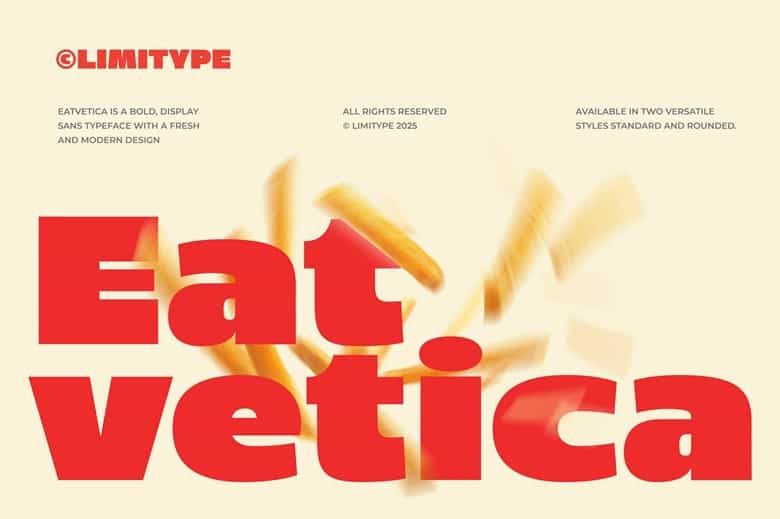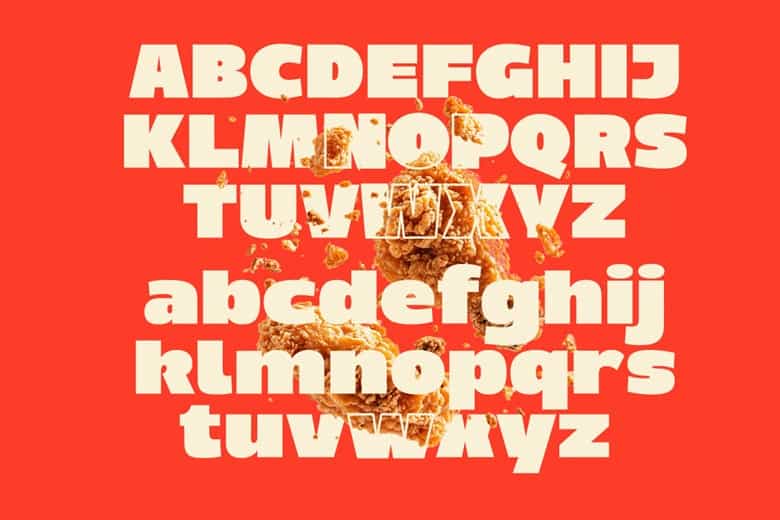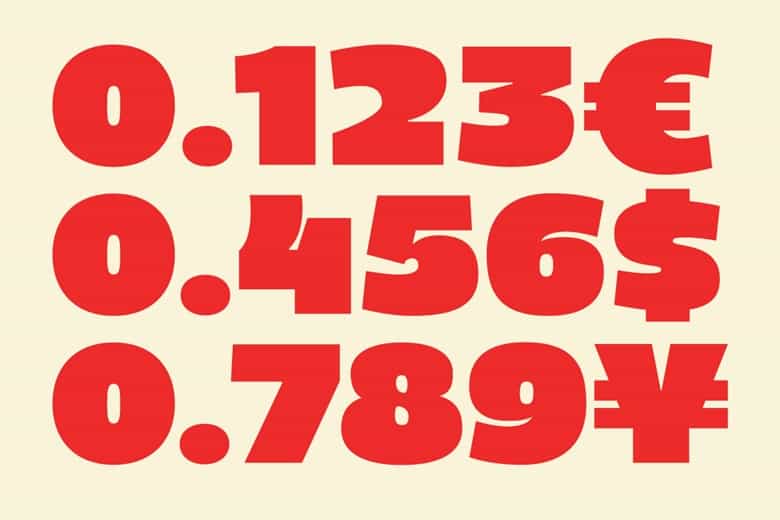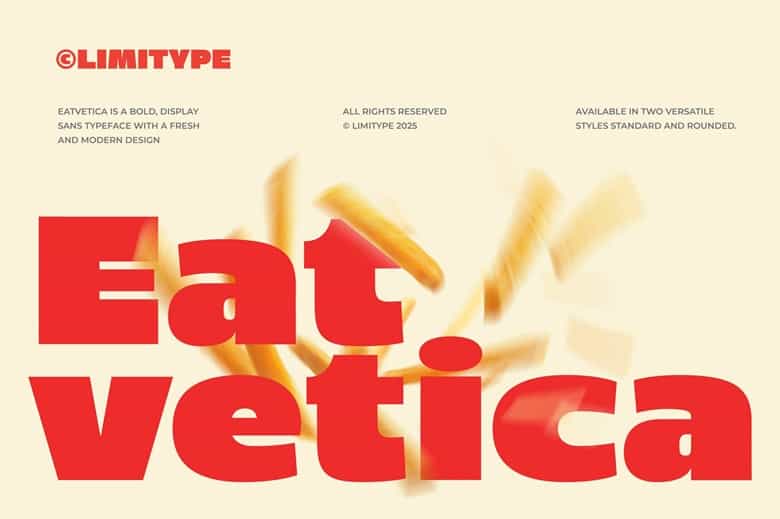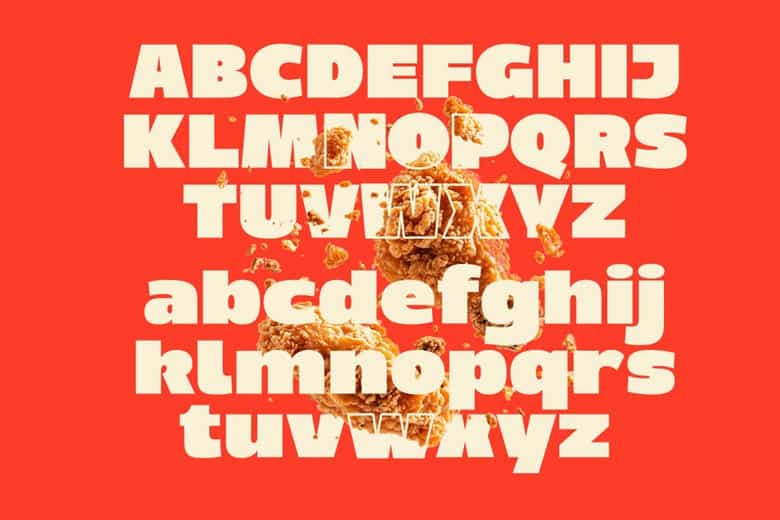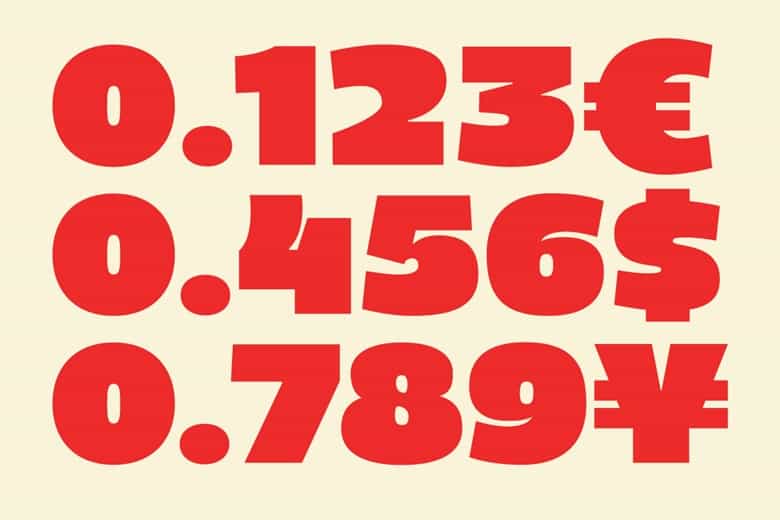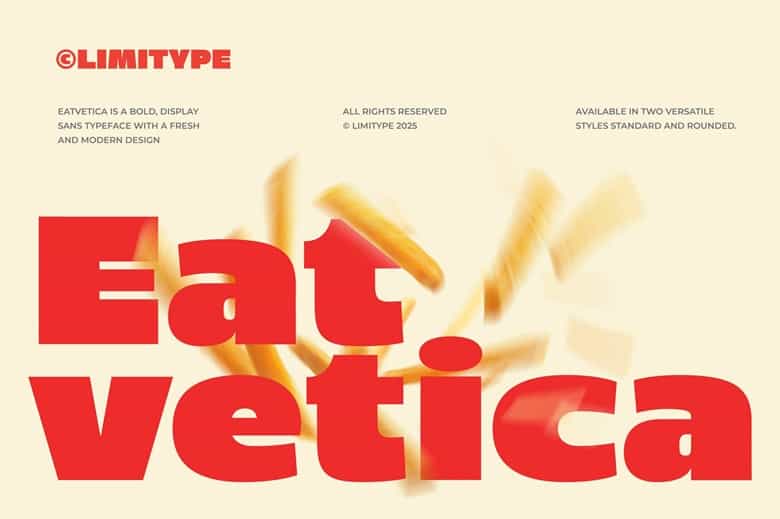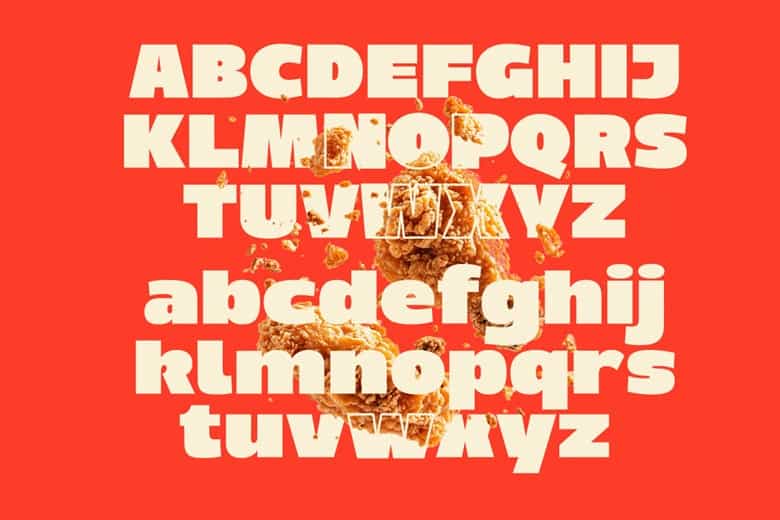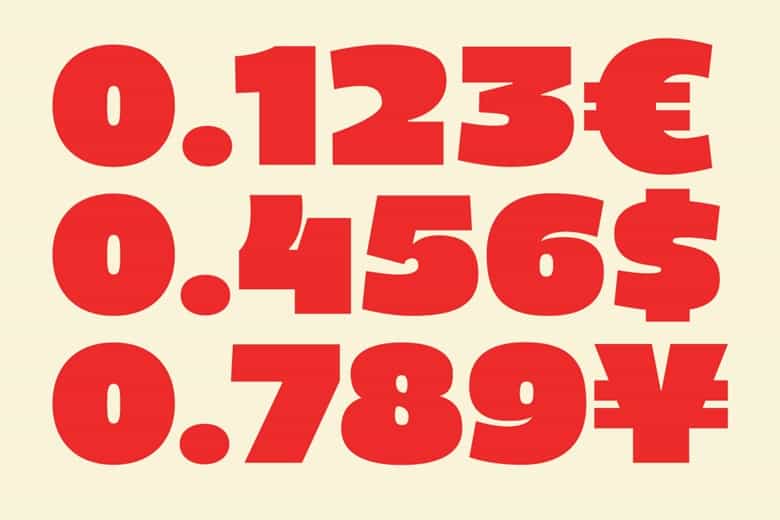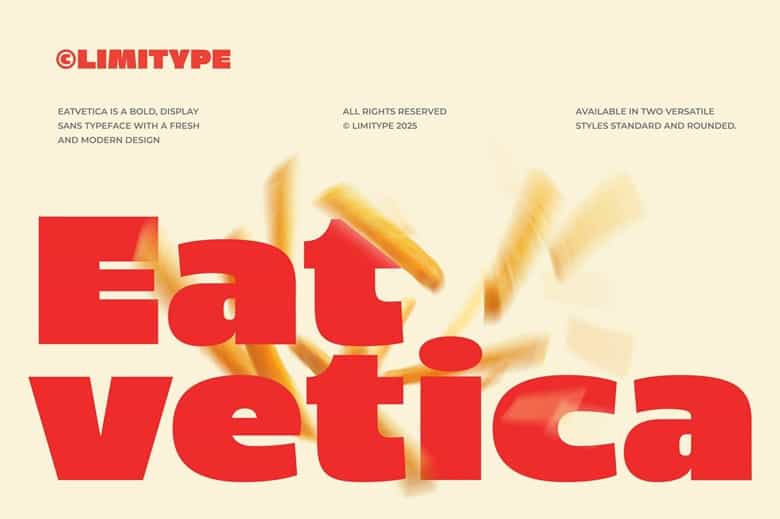
Give every design some bold flavor with the Eatvetica Bold Food Font, the font that is specialized to the food community and food-inspired designs. The bold, well-proportioned typography of Eatvetica creates the presence of strength and friendliness at the same time, which is the reason it works perfectly in menus of restaurants, food packaging, and cafe branding.